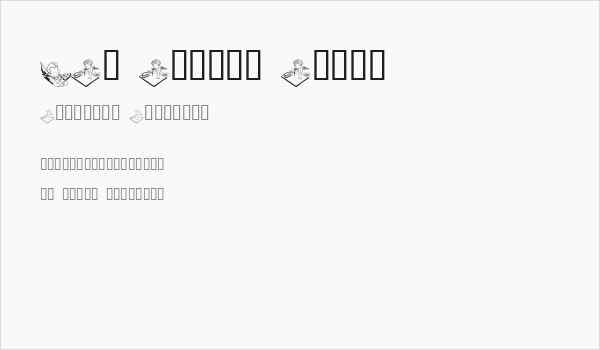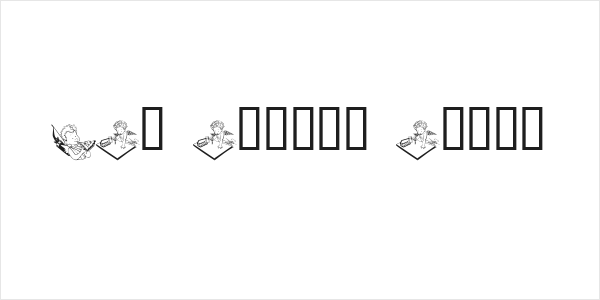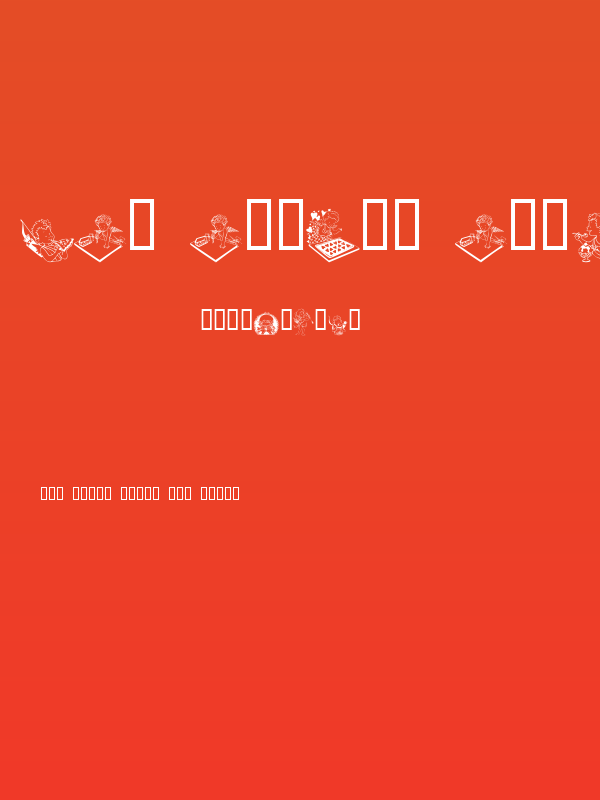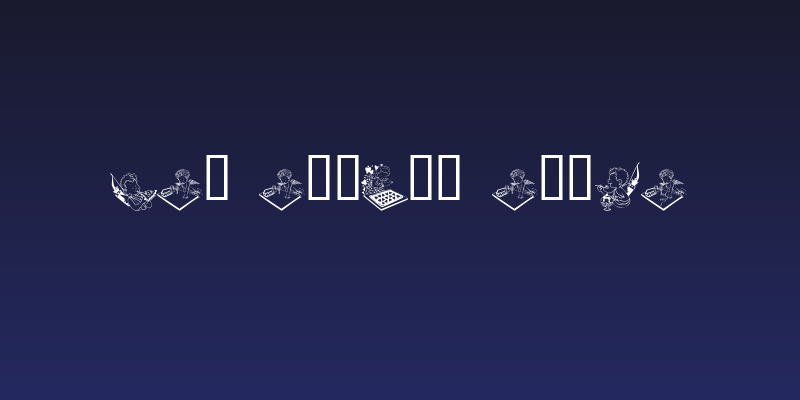
LCR Cutesy Cupid Font
LCR Cutesy Cupid Description
This is not a valid font. The image contains decorative illustrations of cherubic figures engaged in various playful activities. These illustrations are whimsical and detailed, capturing a sense of innocence and joy. They are not characters or glyphs that can be used as a font for text representation.
| Overall Style | Whimsical, Decorative |
| Use Case | Decorative illustrations, not suitable for text. |
| Proposed Projects | These illustrations could be used for decorative purposes in greeting cards, children's books, or themed invitations. |